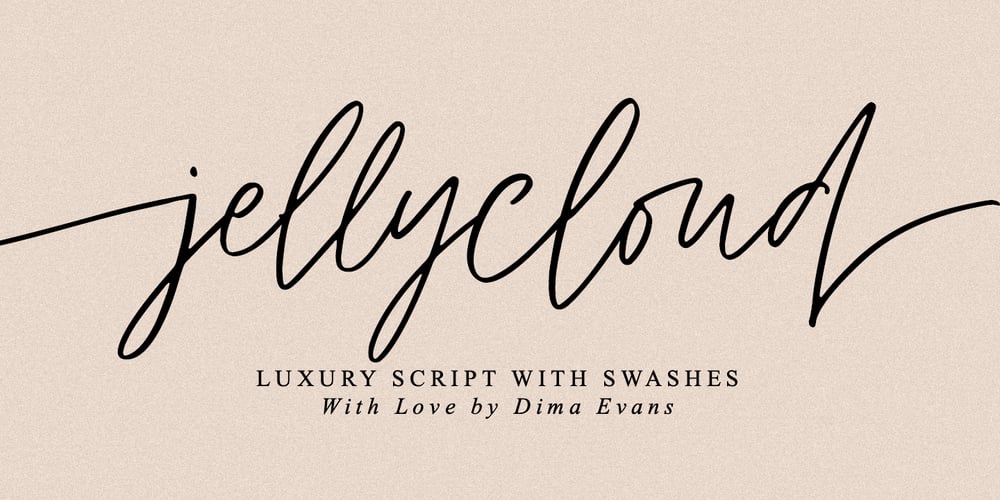
Jelly Cloud Font Family was designed by Dmitrii Chirkov and published by Supfonts. Jelly Cloud contains 1 styles and family package options. JellyCloud / Font with SwashesJellyCloud is a chic script with exquisite accents. It is perfect for branding, wedding invitations and invitation cards and much more.Font includes a full set of gorgeous uppercase and lowercase letters, numbers, a large selection of punctuation marks, ligaturesTest it out below to see how it could look for your next project!Includes: Regular Script Latin languages support Uppercase and lowercase Numbers and punctuation Ligatures Check out my blog: https://www.instagram.com/zloillev pinterest.com/dmitriychirkov7 Enjoy